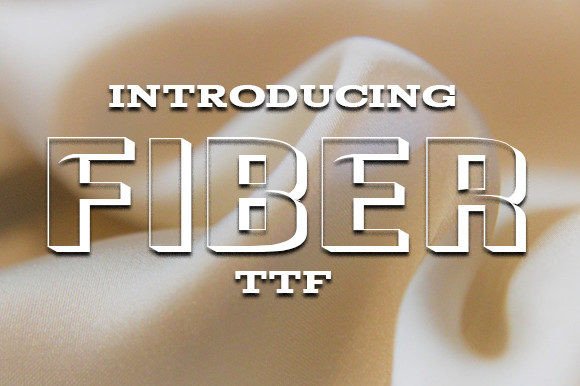
Embark on a typographic adventure with Fiber Font, the display font that strikes the perfect balance between charm, readability, and contemporary style. This transparent font exudes an aura of warmth and approachability, captivating audiences with its effortless legibility, even in the most intricate designs.
Dive into a world of creative possibilities with Fiber Font, the perfect companion for crafting attention-grabbing campaign posters that resonate with your audience. Its distinctive letterforms dance across the page, inviting readers to engage with your message in a profound and memorable way.
Whether you're a seasoned graphic artist or just starting your design journey, Fiber Font is your trusty sidekick, ready to elevate your projects to new heights. Its versatility knows no bounds, adapting seamlessly to a vast spectrum of creative endeavors. Craft stunning digital designs that captivate the imagination, create presentations that leave a lasting impression, or add a touch of heartfelt charm to your handmade greeting cards – Fiber Font is the font that does it all, effortlessly enhancing your artistic vision.
Experience the joy of effortless readability with Fiber Font, a font that cares about your audience's experience. Its transparent design ensures that your messages shine through with unparalleled clarity, never allowing visual distractions to cloud the impact of your words. Whether you're crafting marketing materials, website content, or social media posts, Fiber Font guarantees that your message will hit home, leaving an indelible mark on your audience's minds.